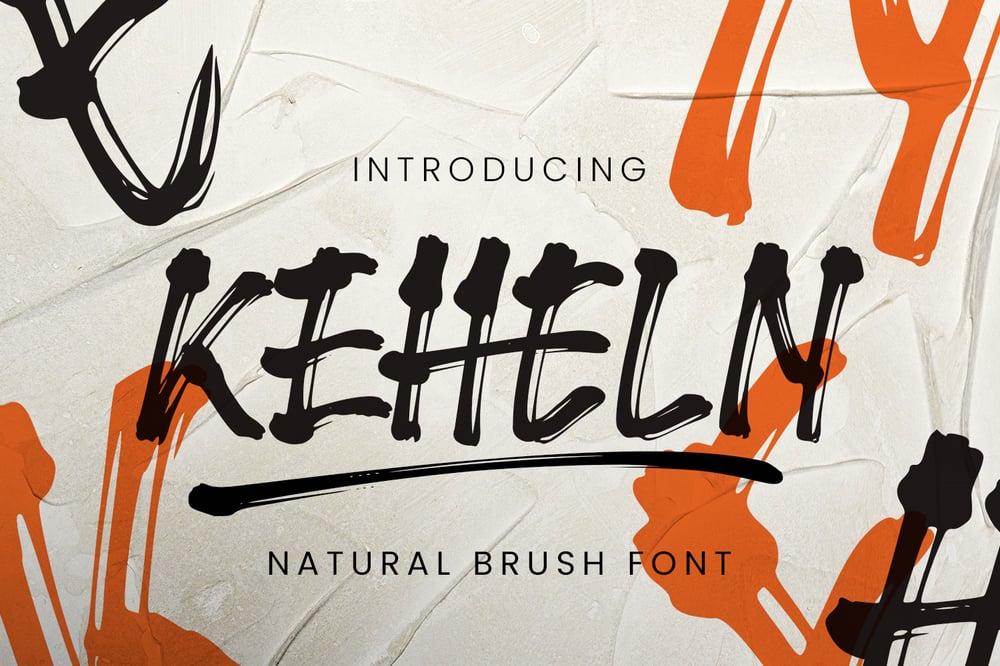
Keheln Font Family was designed by Sur Anto and published by Kangfont Studio. Keheln contains 1 styles and family package options. Keheln is a natural brush font designed to bring a creative and energetic touch to your projects. With its dynamic strokes and authentic brush texture, this font is perfect for various design needs such as posters, branding, packaging, and other creative works.It offers a relaxed yet professional vibe, ideal for creating expressive and bold designs. Keheln is the perfect choice to make your designs stand out and grab attention.